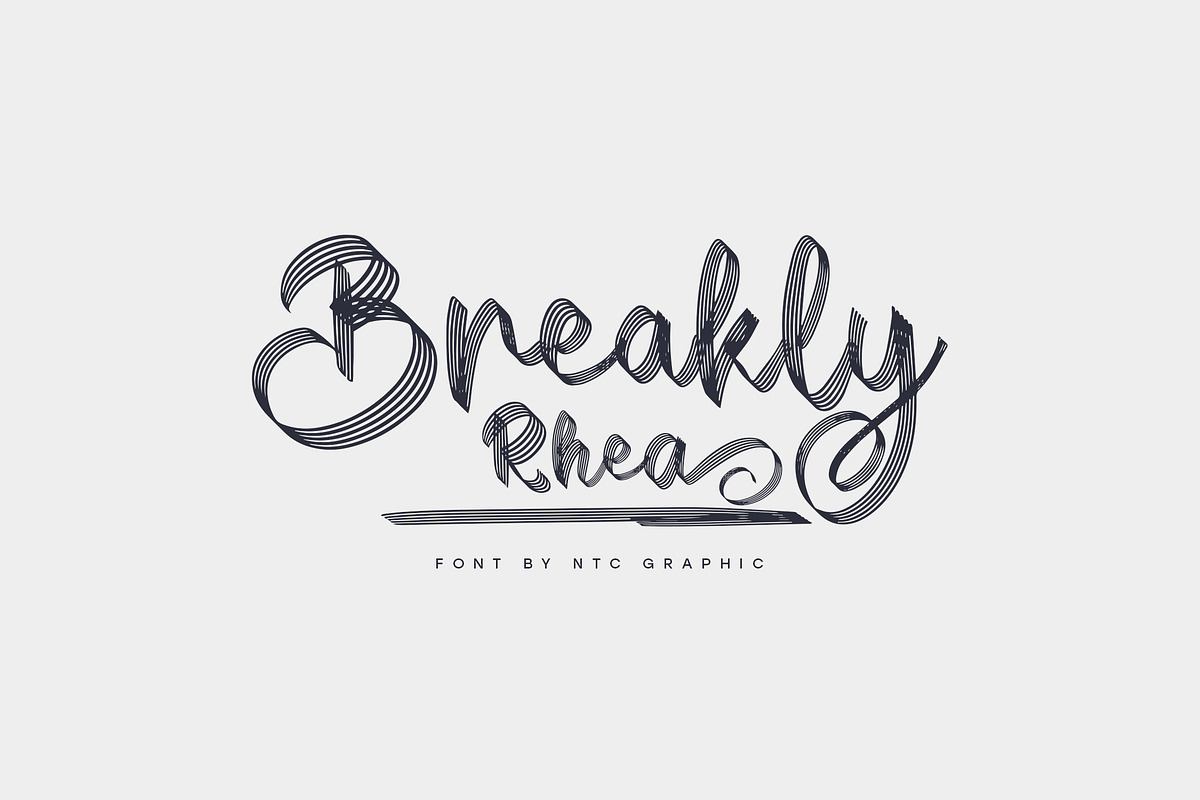
Breakly Rhea Script Font Free Download
Breakly Rhea Script Font Free Download is a stylish and flowing handwritten script that brings a touch of elegance and charm to any design. With its smooth curves, graceful strokes, and natural rhythm, this font is perfect for wedding invitations, branding projects, social media content, and modern calligraphy artwork. It adds a personal, sophisticated flair that enhances the overall look and feel of your creative work.
Crafted for both beauty and functionality, Breakly Rhea Script Font Free Download delivers excellent readability while maintaining its decorative appeal. Whether you're designing logos, greeting cards, or custom merchandise, this script typeface adapts beautifully across a variety of applications, bringing warmth and personality to every piece.